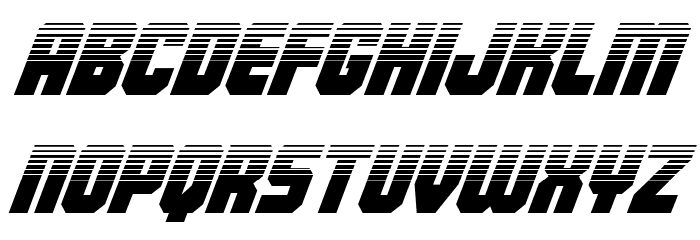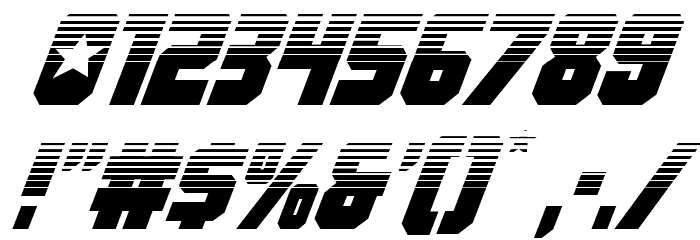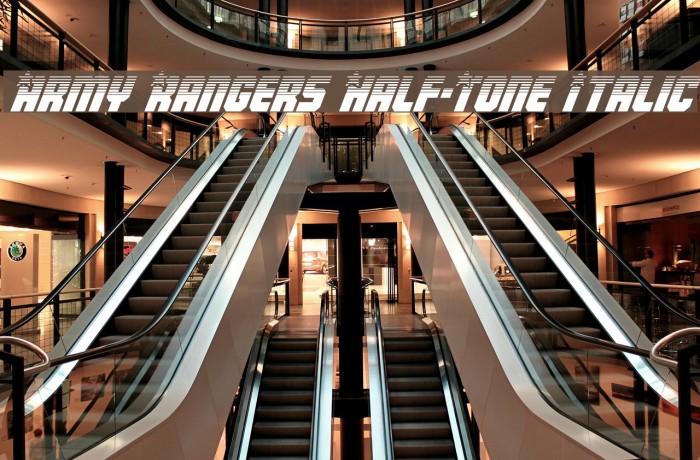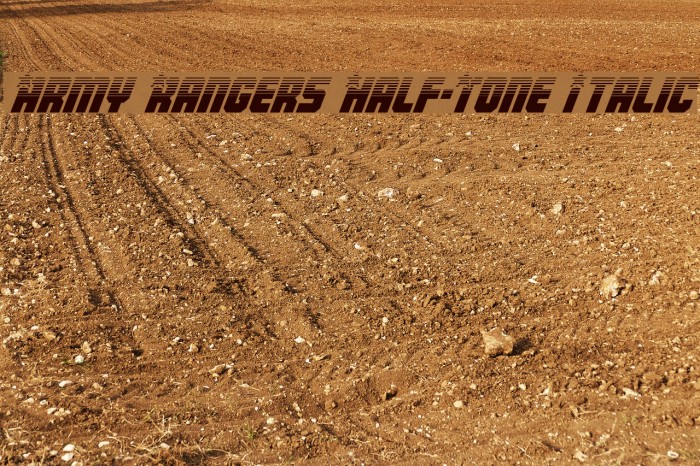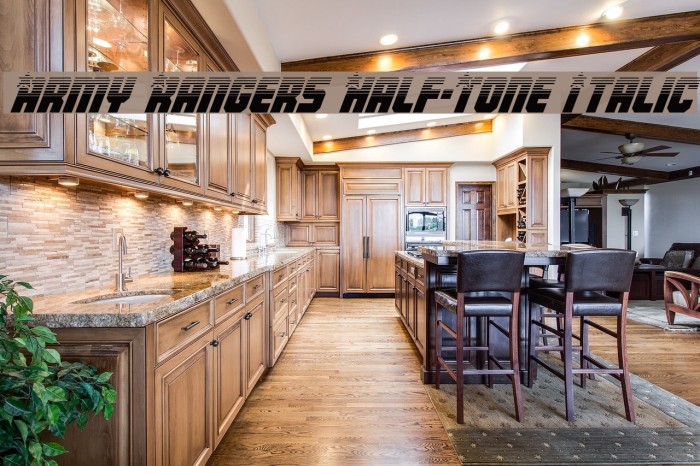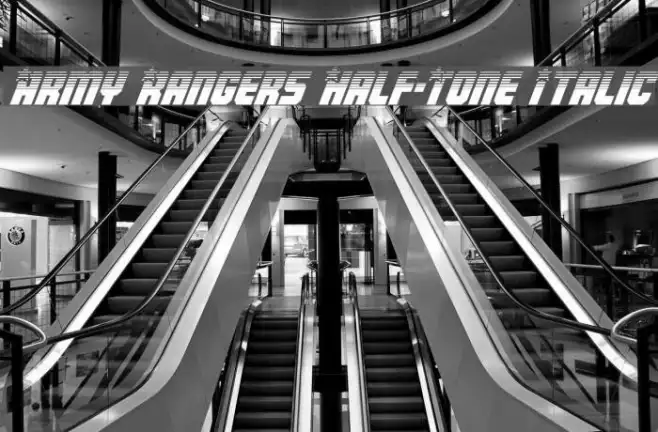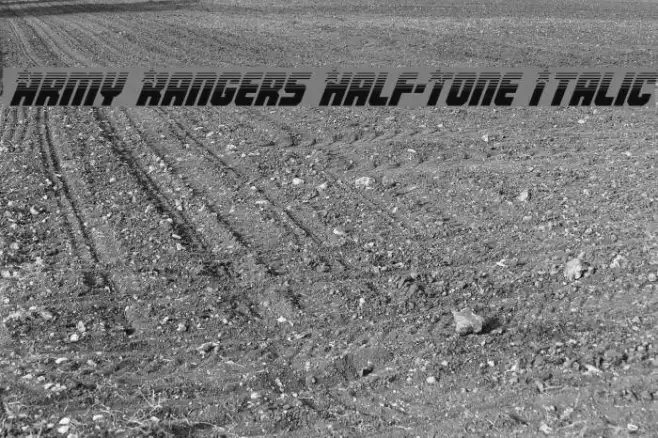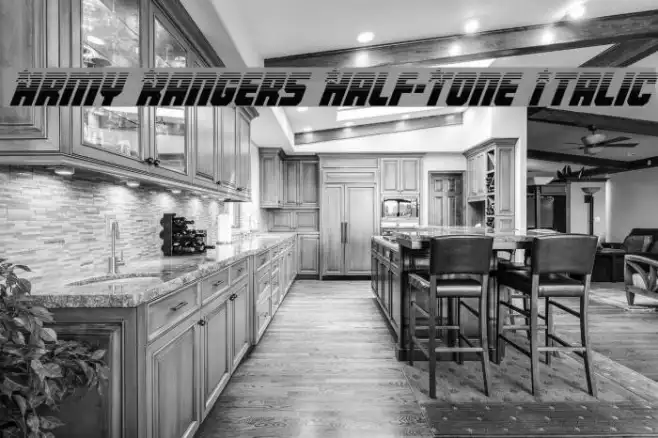
Army Rangers Half-Tone Italic Font
This font features a bold, italicized style with a unique half-tone effect that gives it a dynamic and energetic appearance. The characters are designed with a slanted orientation, enhancing the sense of movement and speed. The upper portion of each character is composed of horizontal lines, creating a gradient effect that transitions into solid black at the bottom. This design choice adds a modern and edgy feel, making it suitable for projects that require a strong visual impact. The font maintains consistent thickness throughout, ensuring readability while still delivering a distinctive look.
A bold, italicized font with a half-tone effect and dynamic, modern style.
- Font: Army Rangers Half-Tone Italic
- Proposed Projects: Ideal for sports branding, action-themed posters, video game titles, and dynamic advertising campaigns.